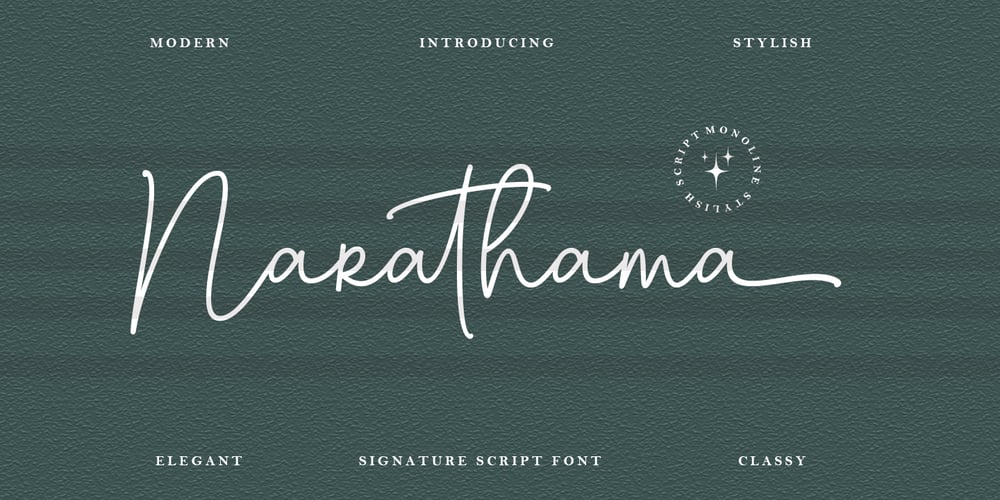
Narathama Font Family was designed by Muhammad Iqram and published by Gloow Studio. Narathama contains 1 styles and family package options. Narathama – Modern & Feminine Script Font perfect for branding, invitation, stationery, wedding designs, social media posts, advertisements, product packaging, product designs, label, photography, watermark, special events, and more.Features:Uppercase and lowercase lettersalternates Multilingual symbols, numerals, and punctuationThank You!